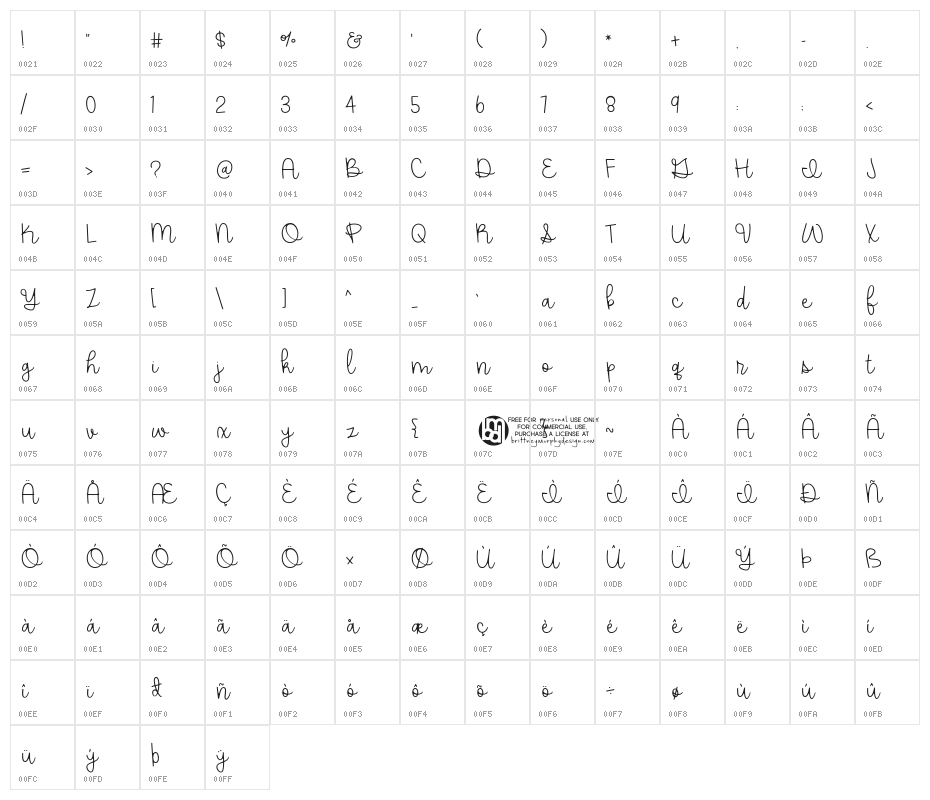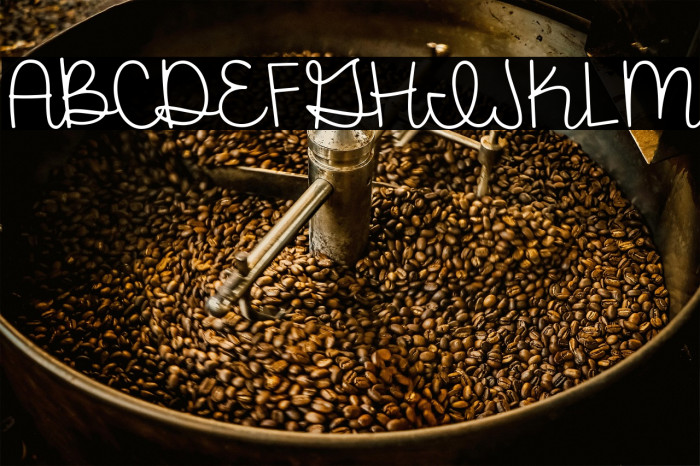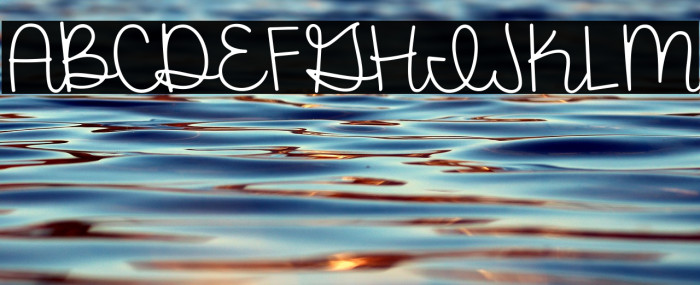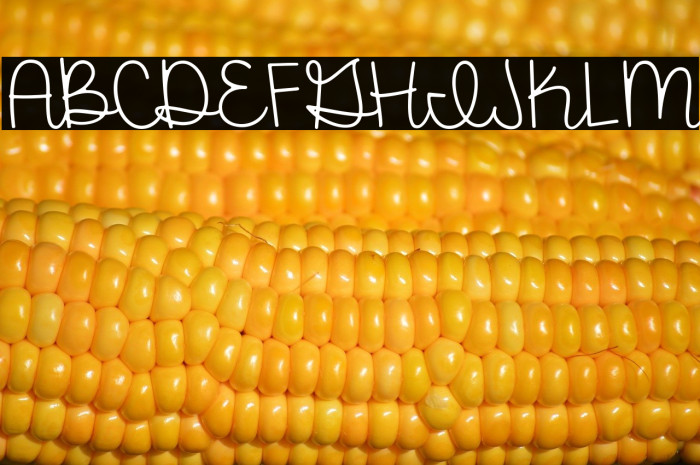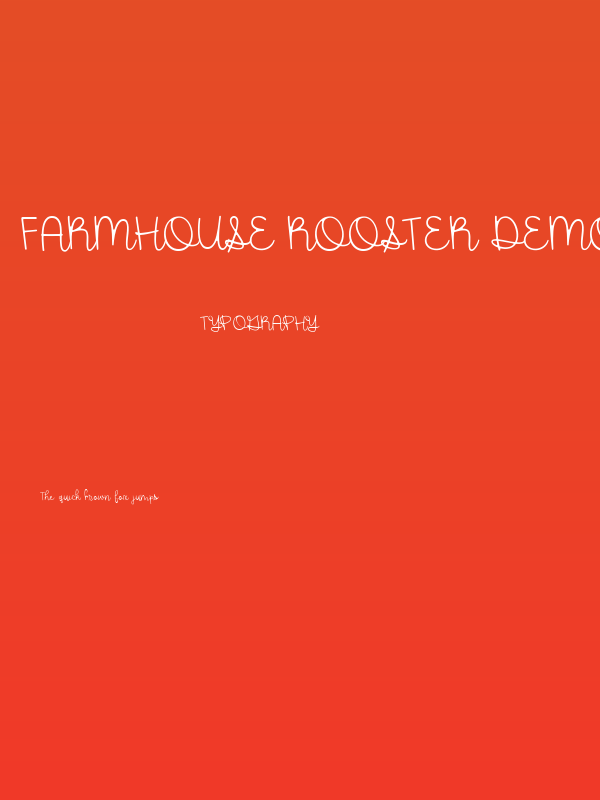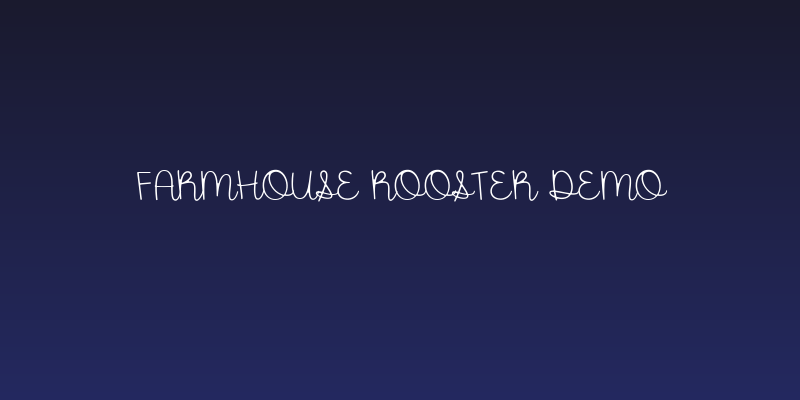
Farmhouse Rooster Demo Font
Farmhouse Rooster Demo Description
This font features a playful and whimsical handwritten style, characterized by its flowing, cursive-like letters. The uppercase letters are bold and slightly irregular, giving them a charming, rustic feel. The lowercase letters maintain a consistent flow, with loops and curves that add to the font's casual elegance. Numbers and special characters are designed to match the overall style, ensuring a cohesive look across all text. The font's unique personality makes it ideal for projects that require a touch of creativity and warmth.
| Proposed Projects | Ideal for greeting cards, invitations, branding projects, and home decor designs. |